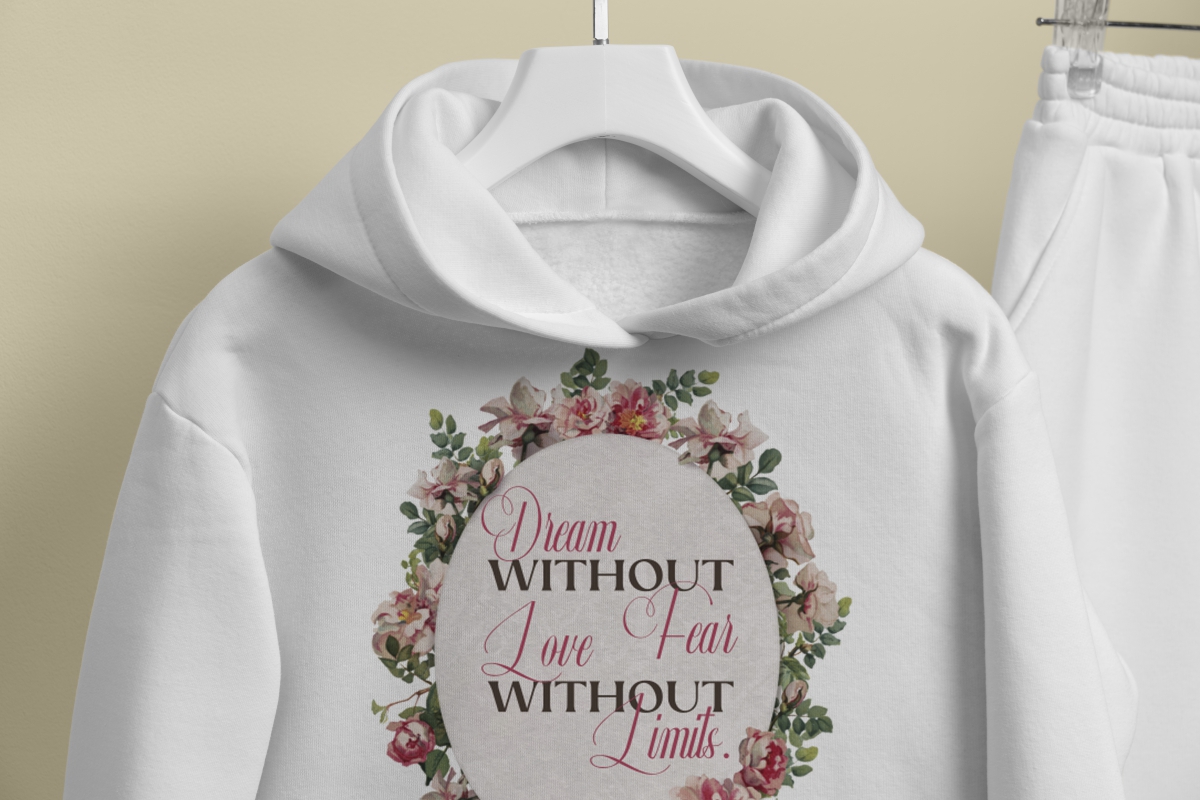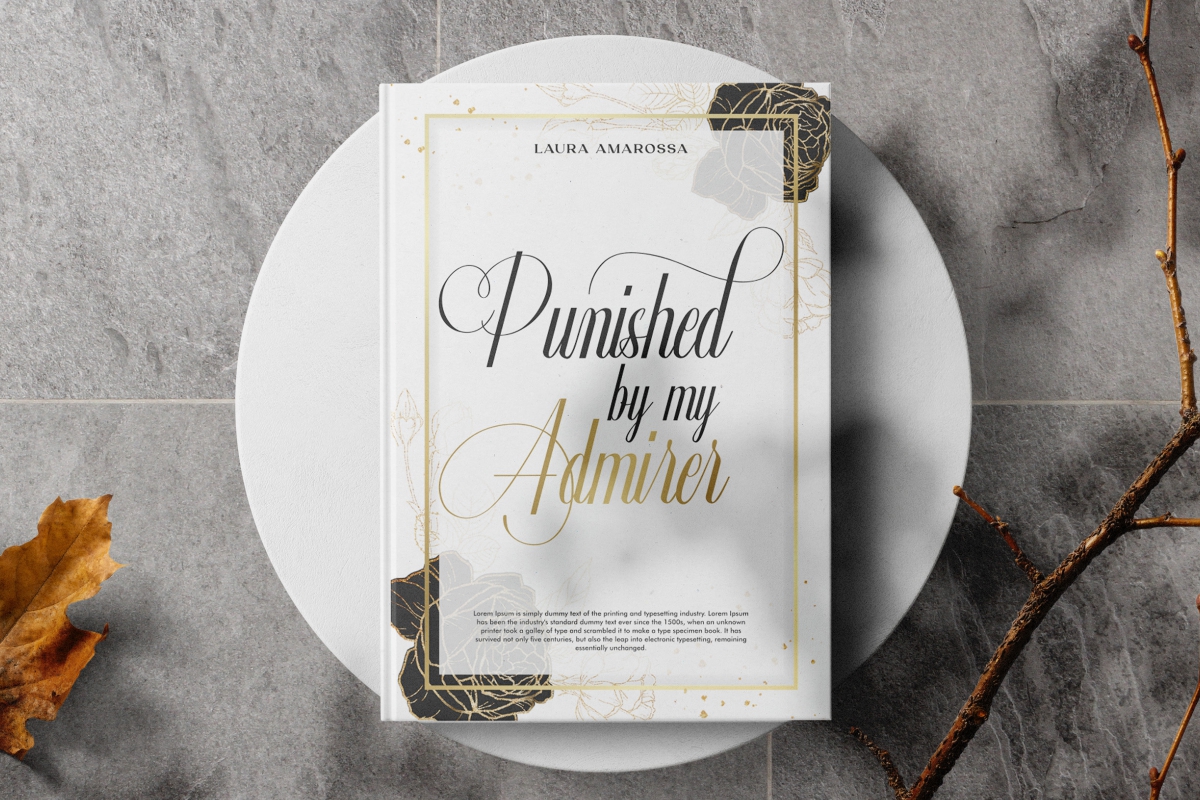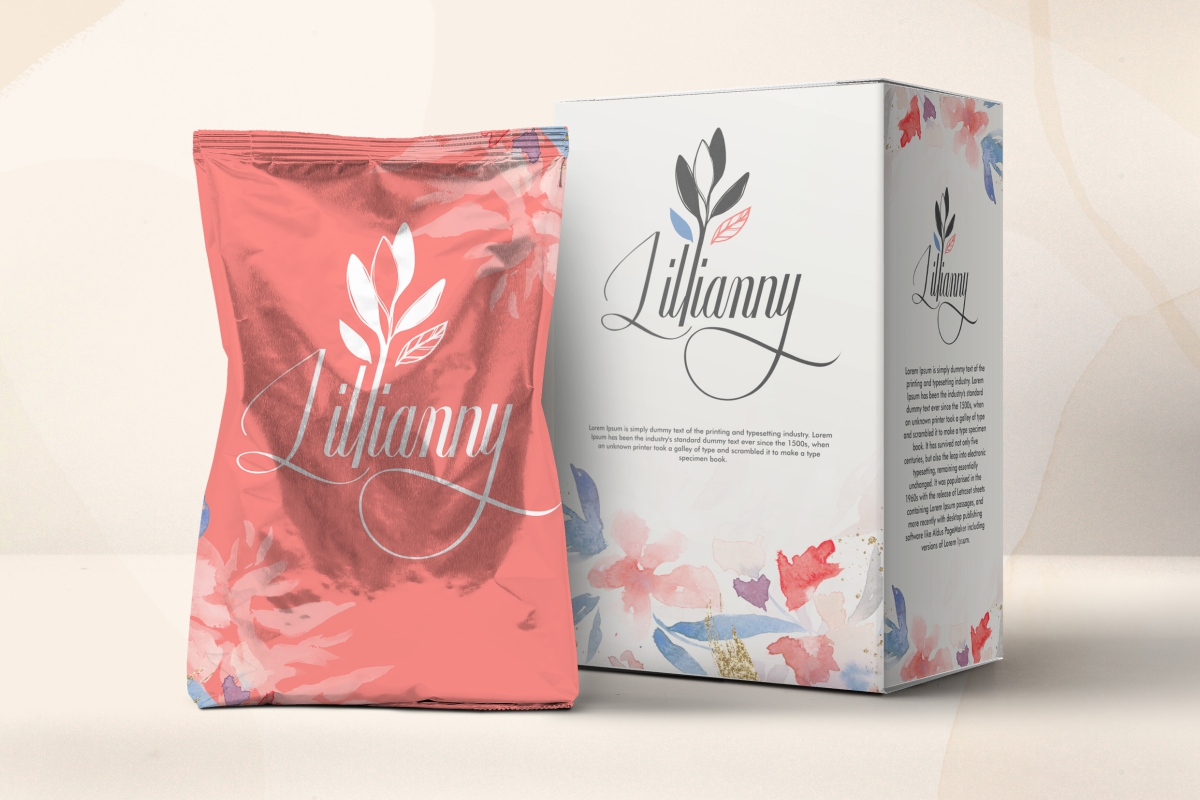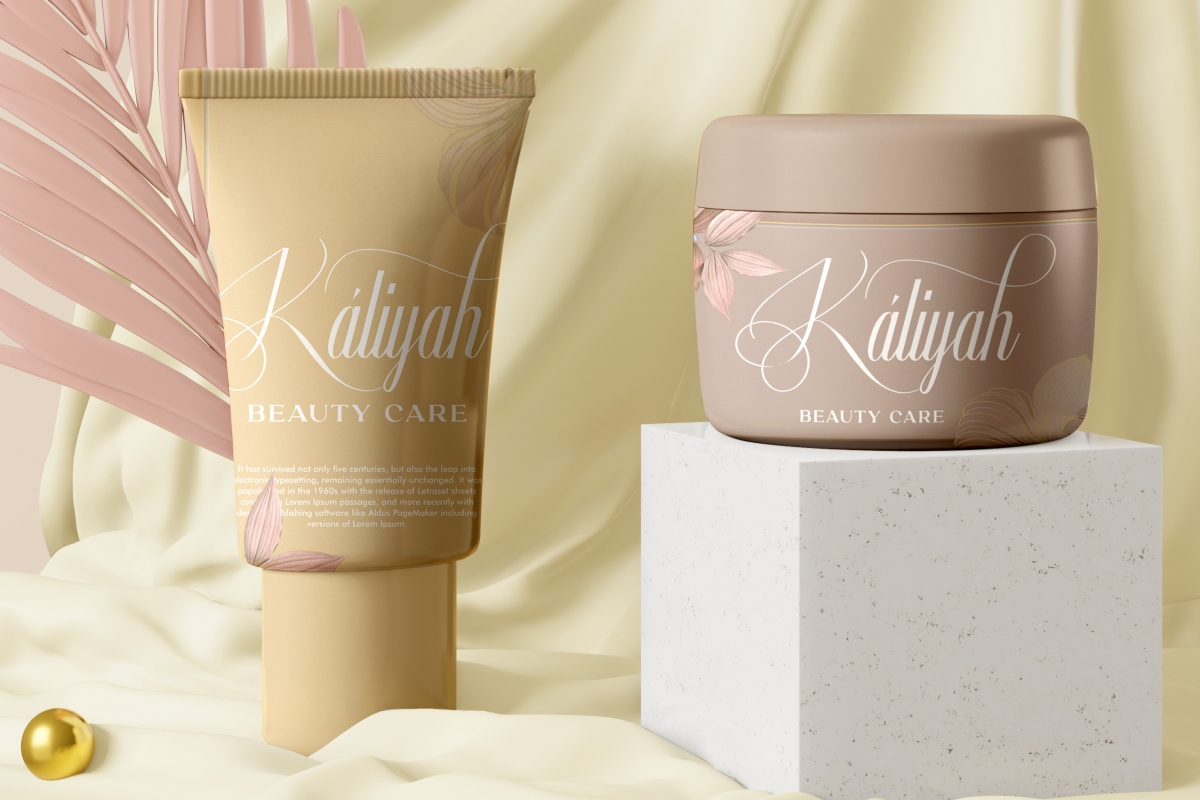
Ainsley Blossom Script Font
This is a calligraphy font with a classic style and an elegant touch that also great for signature. This font will be a wonderful asset to your font library, as it has the potential to enhance any creation from business card, logo, stationery, branding, clothing print & tag, cosmetic, florist, magazine, packaging design, wedding invitation, and more.